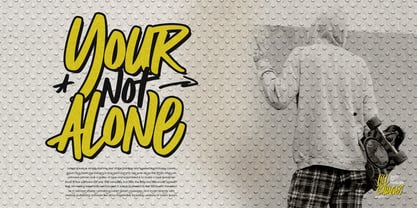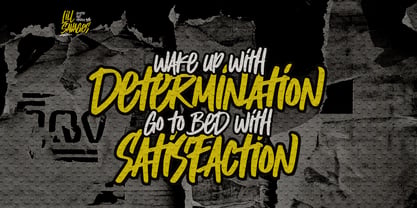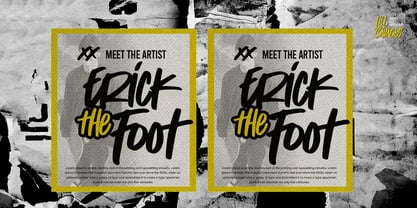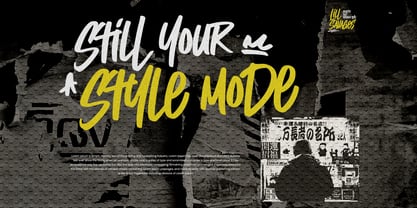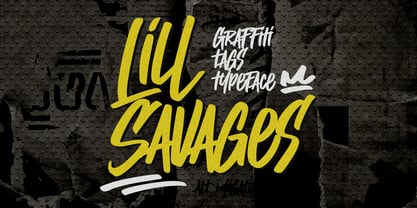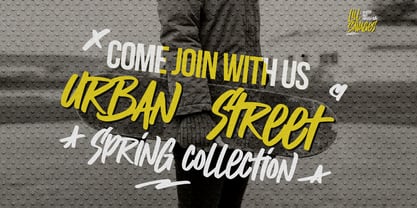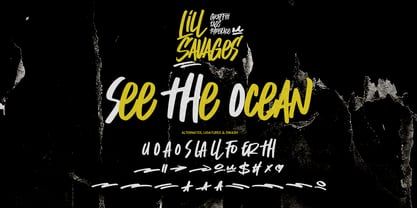
Lill Savages
by Gassstype
The Lill Savages Font Family was designed by Abdul Malik Wisnu and published by Gassstype. Lill Savages contains 1 styles. More about this family
Introducing our new product, Font Lill Savages: This Is Graffiti Tags Typeface. This textured natural style font embodies a graffiti aesthetic, making it perfect for your next creative project. Whether you're designing logos, printed quotes, invitations, cards, product packaging, headers, logotypes, letterheads, or posters, Lill Savages adds a unique touch. It's ideal for watermarks on photography and enhances branding, advertisements, stationery, wedding designs, labels, and special events. With its charming, authentic, and relaxed characteristics, this font brings a more natural look to your text, making it a versatile choice for any project.
Designers: Abdul Malik Wisnu
Foundry: Gassstype
Based in Ambarawa - Semarang, Indonesia, and established in 2020 by Anang Fibriyanto and Malik Wisnu, Gassstype Studio is a foundry that builds tools and types, basically to show and promote his typefaces. He began designing fonts as a hobby in 2017 and specialized in kinds of brush fonts considered more useful and durable with a particular focus on creating easy and clever solutions for designers. Other than fonts, we love any form of creativity, photography, brush lettering, and more